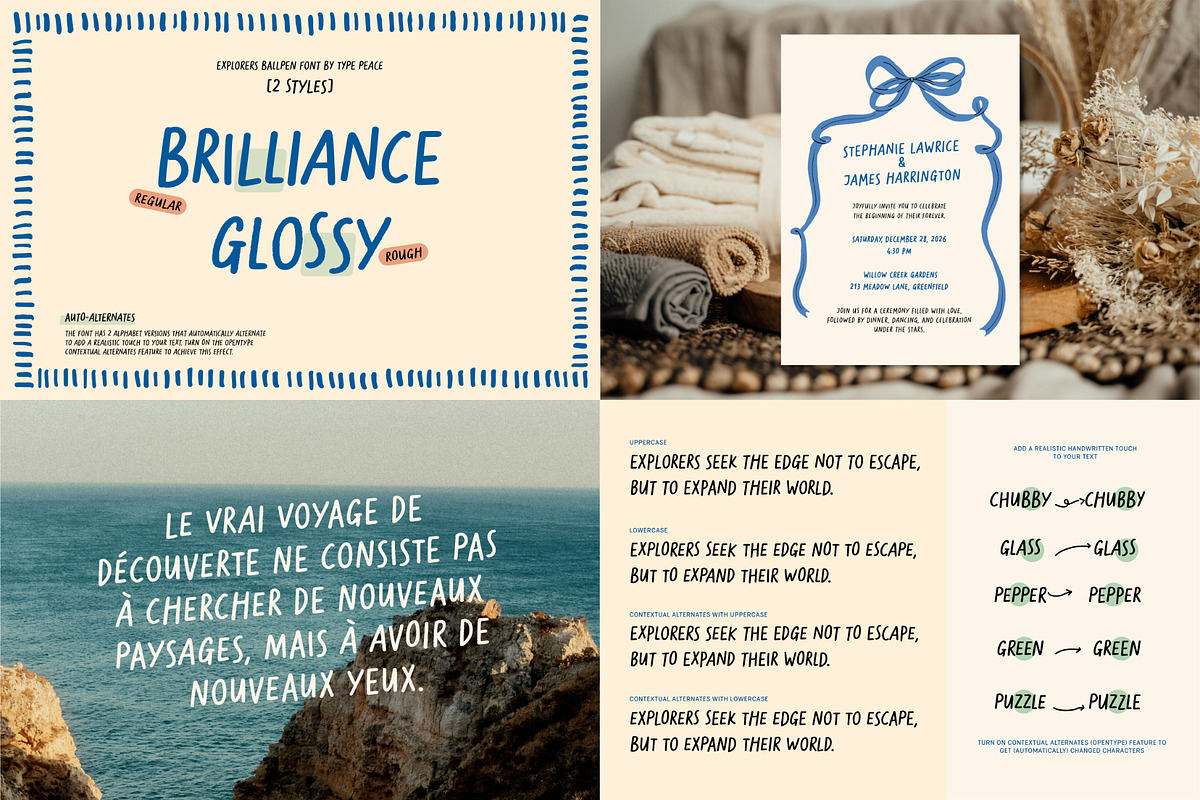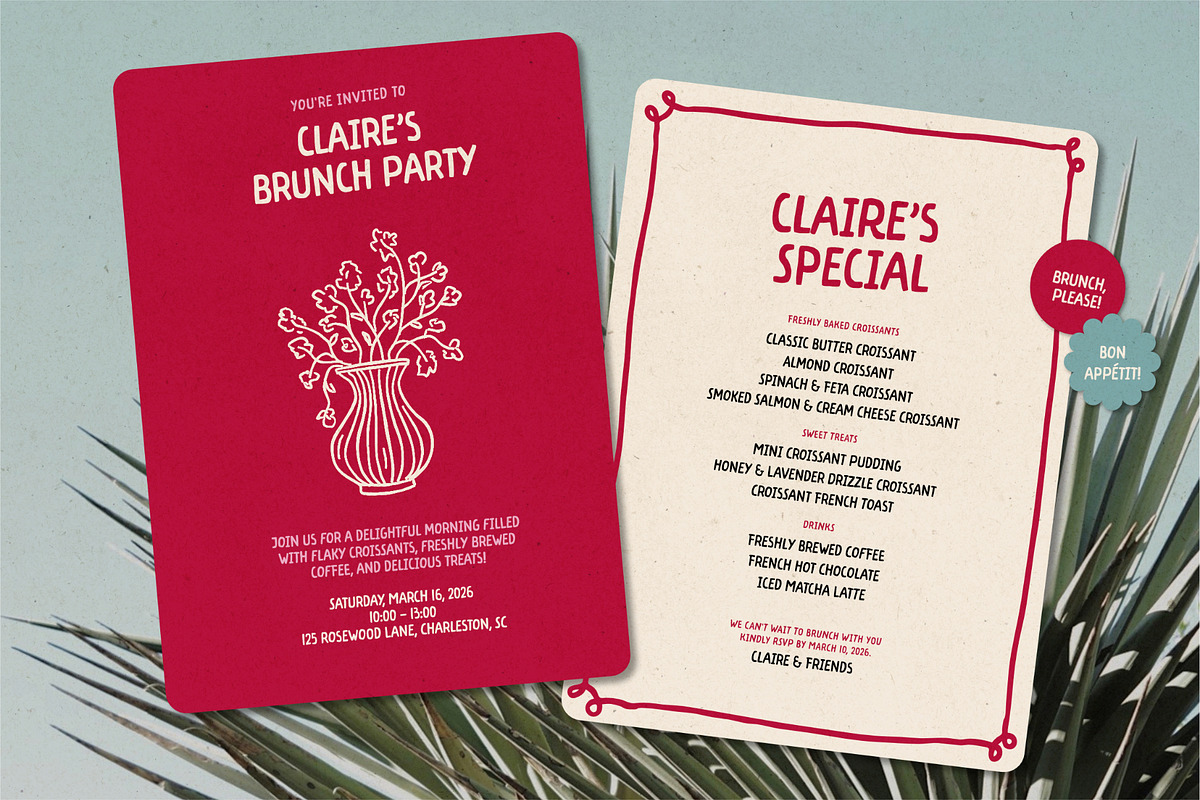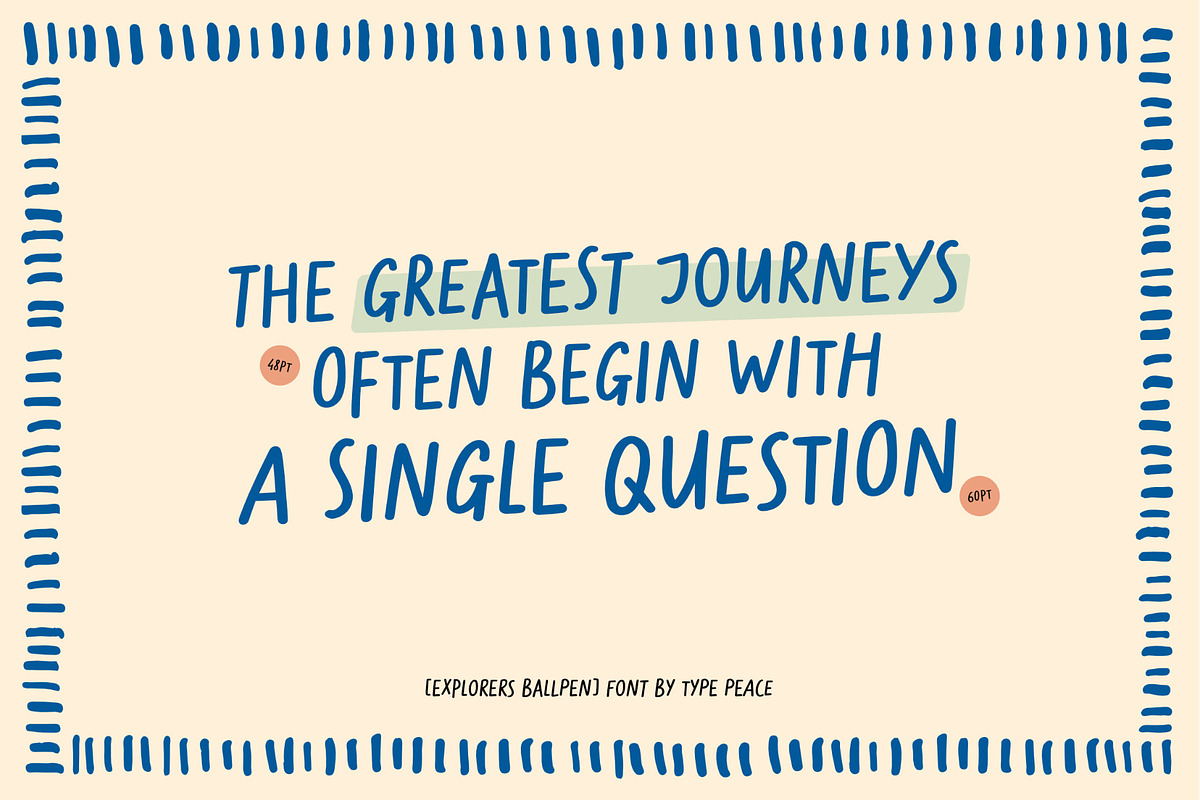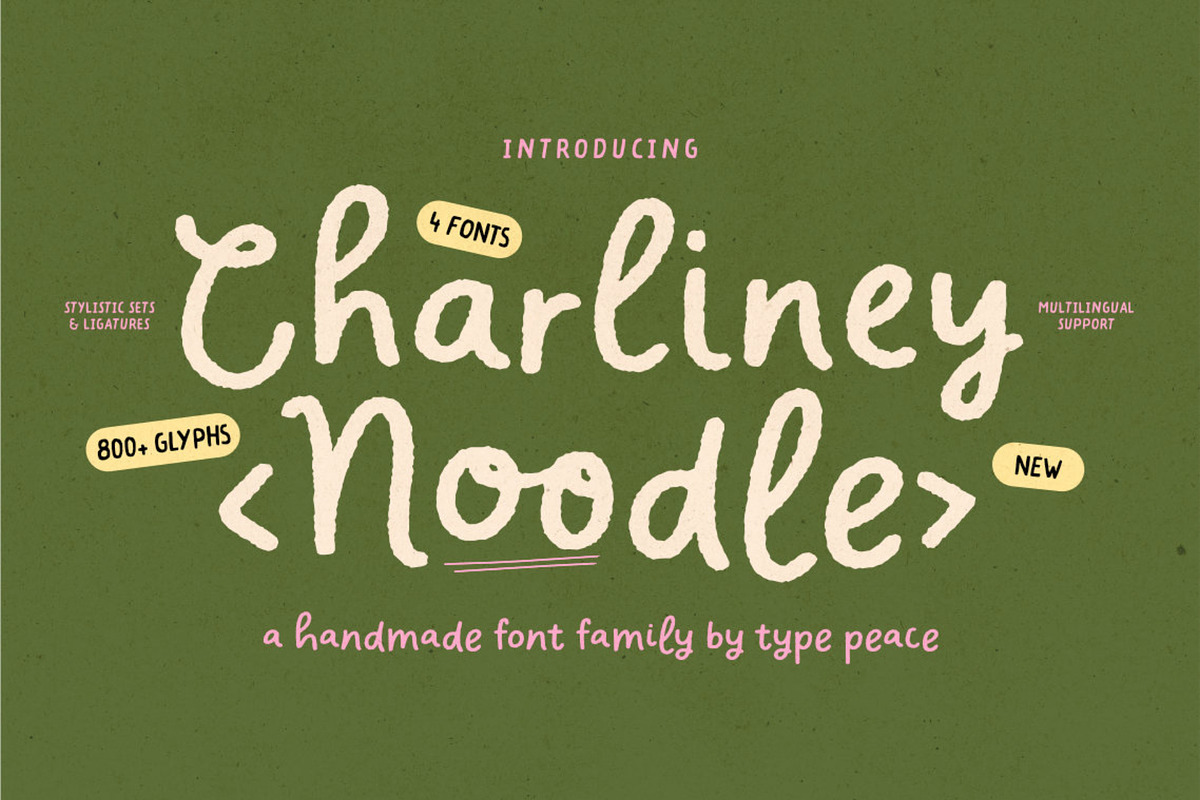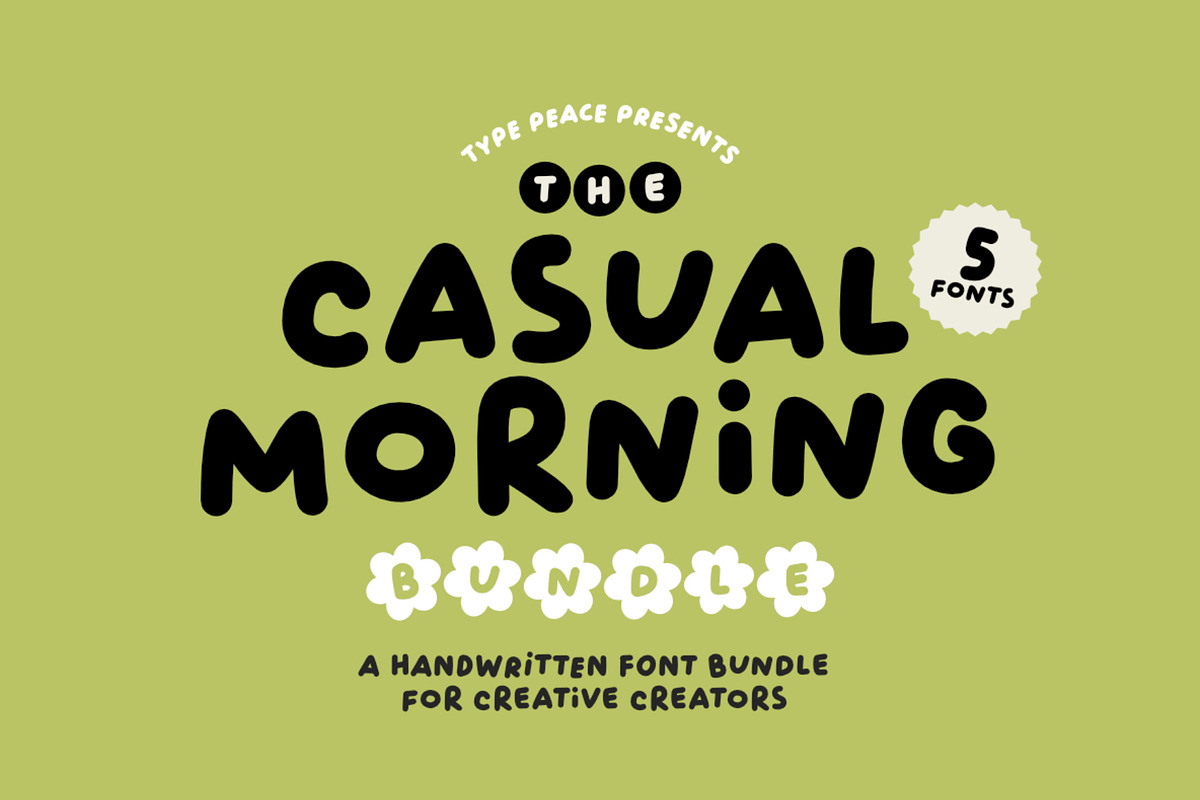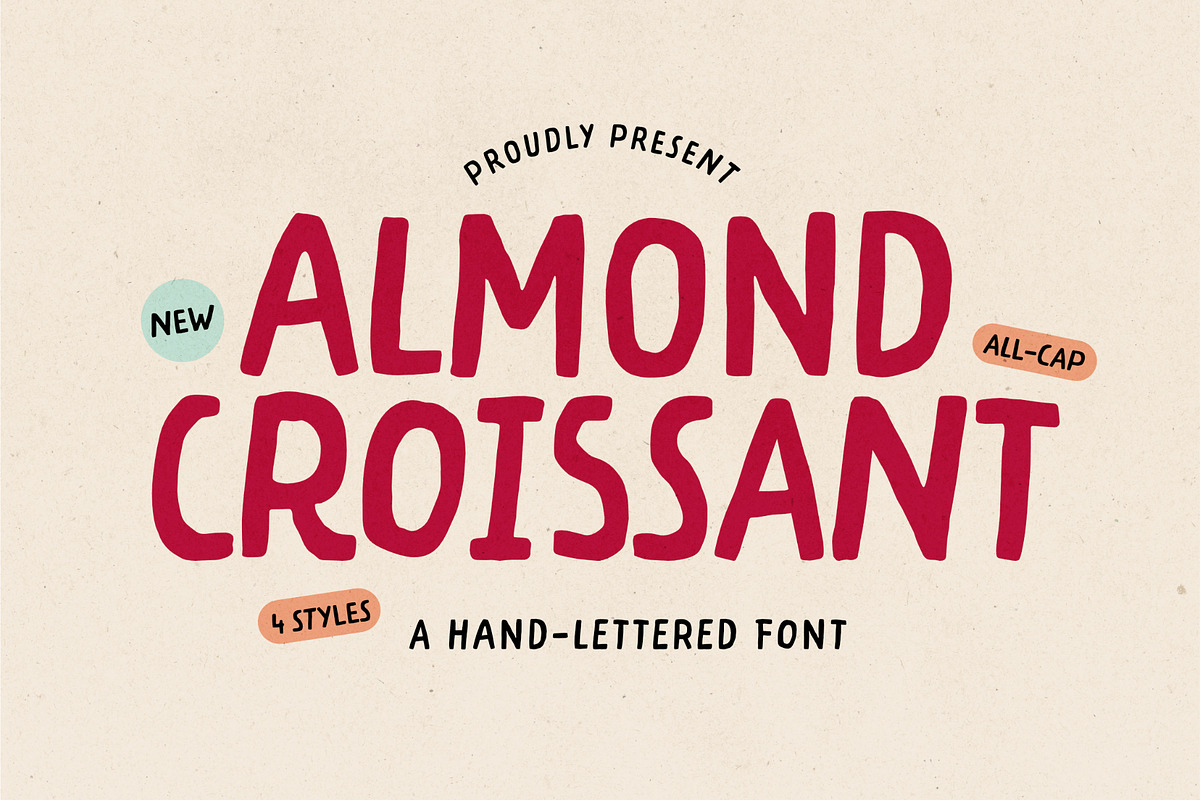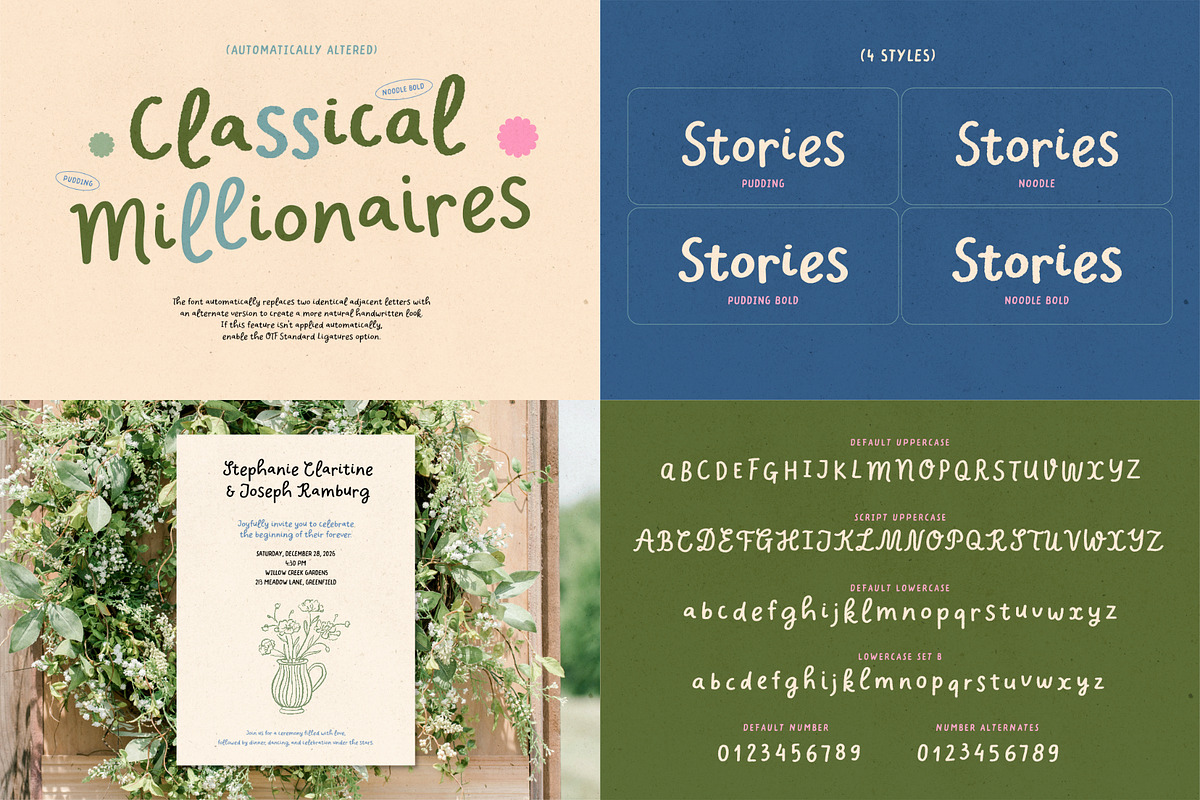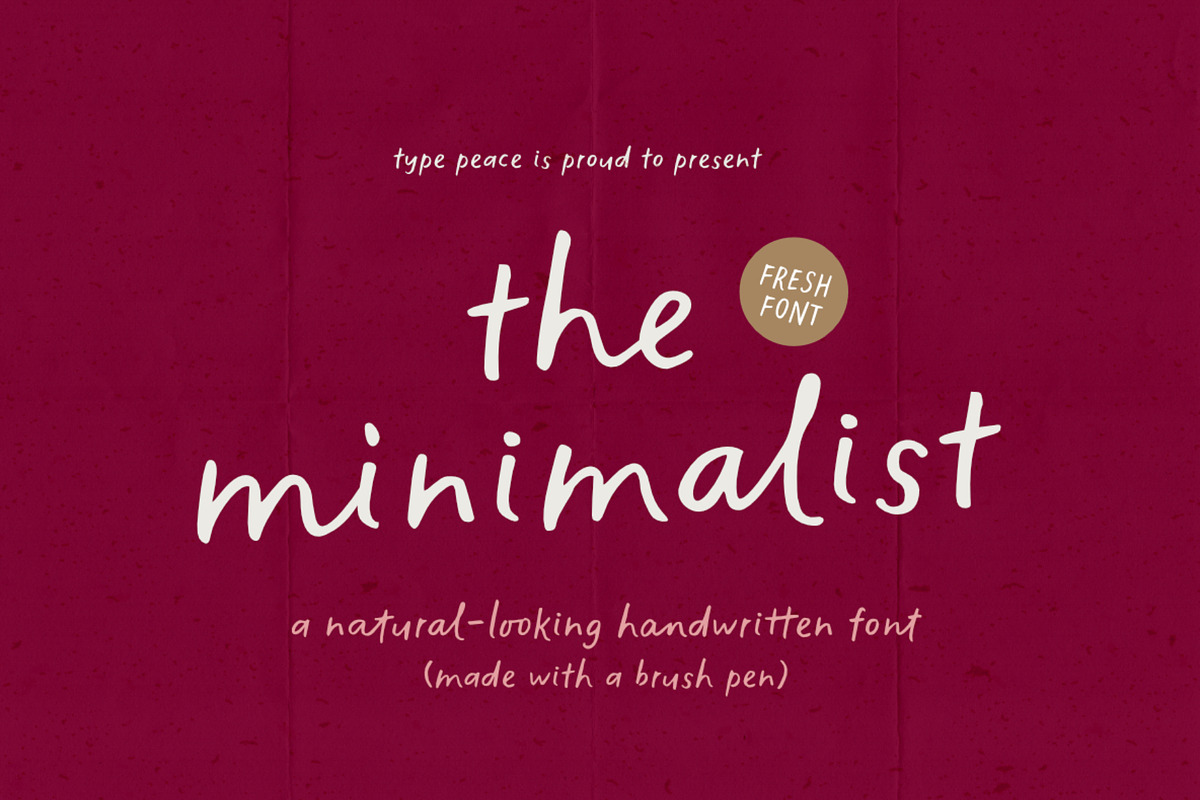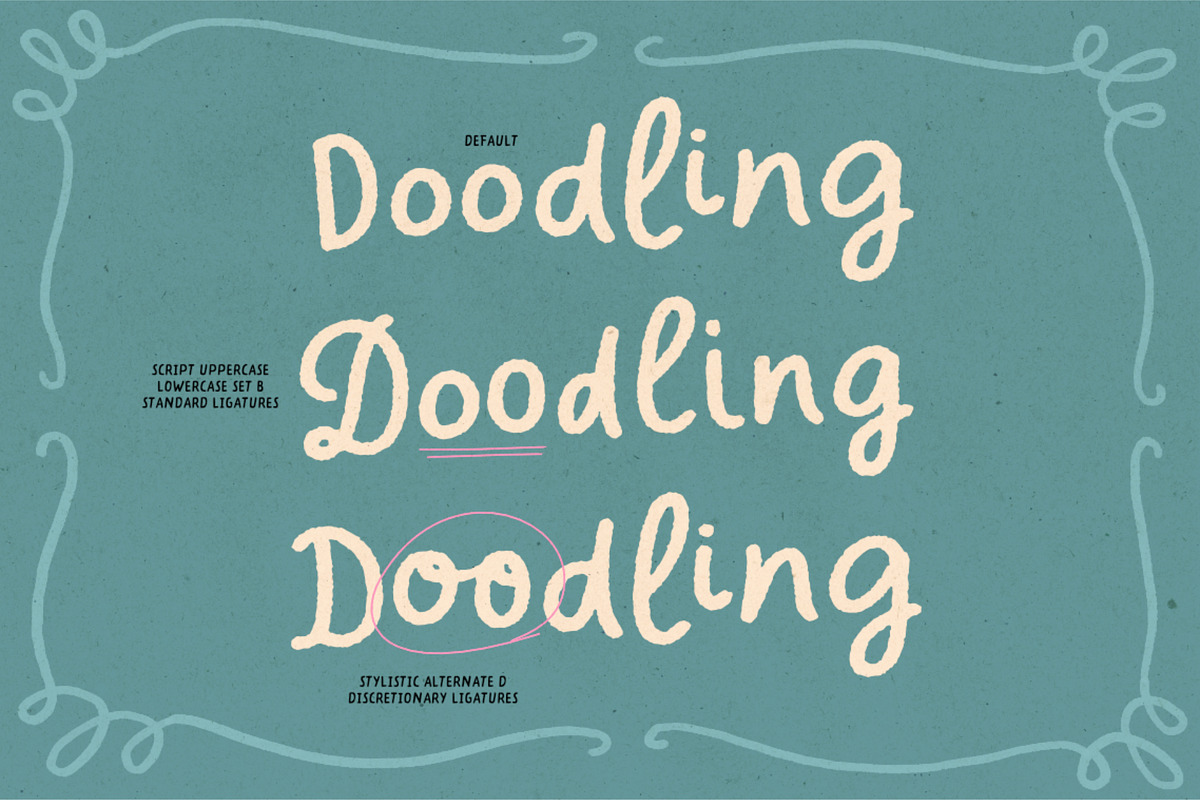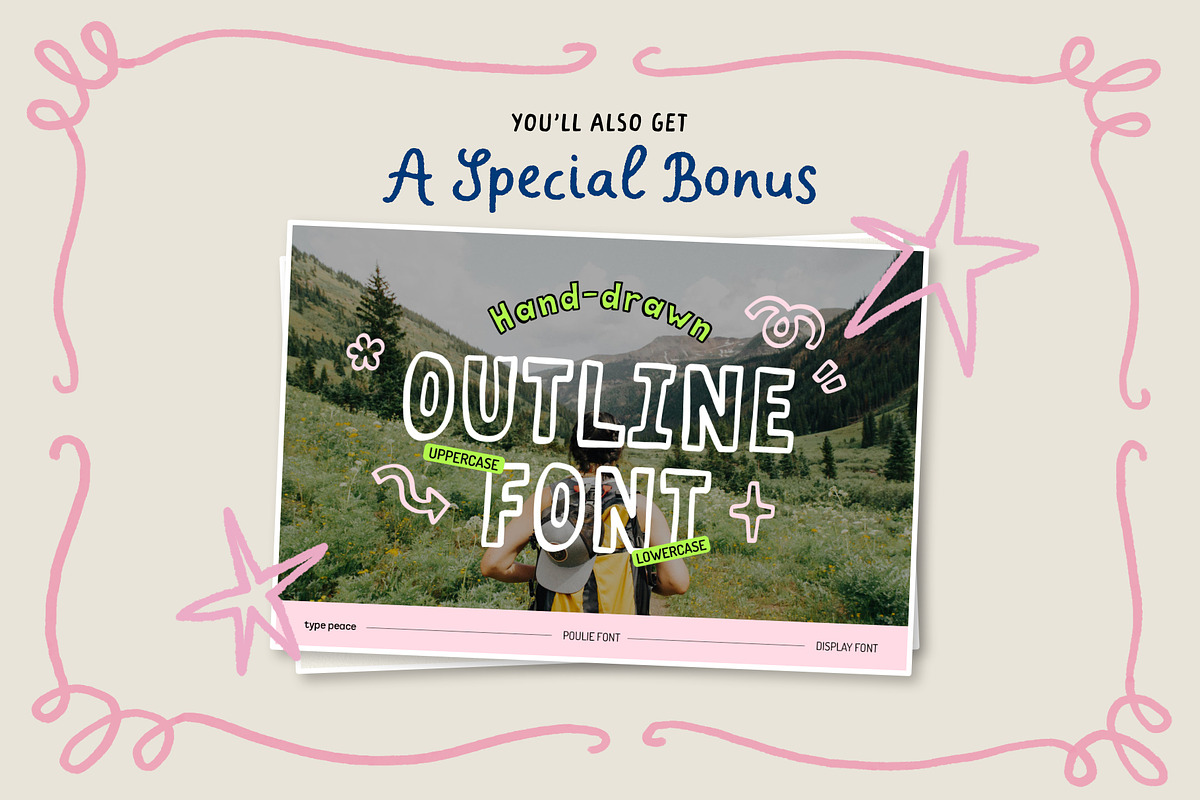
Beloved Handwritten Font Bundle
This Handwritten Font Bundle brings together 21 fonts from type peace's 6 beloved font families, each crafted to capture the unfiltered charm of real handwriting. From loose brush strokes to easy, natural pen lines, every fonts in this collection adds warmth, personality, and a distinctly human feel.
Fonts Included:
Perfect for branding, packaging, social content, stationery, and creative projects of all kinds, these fonts offer a genuine, artistic touch that feels effortless and authentically hand-made.